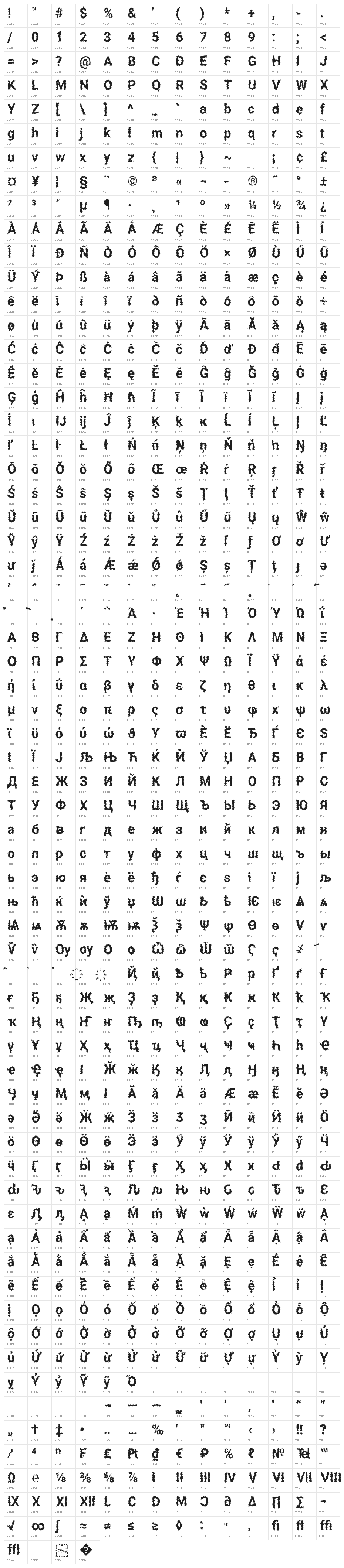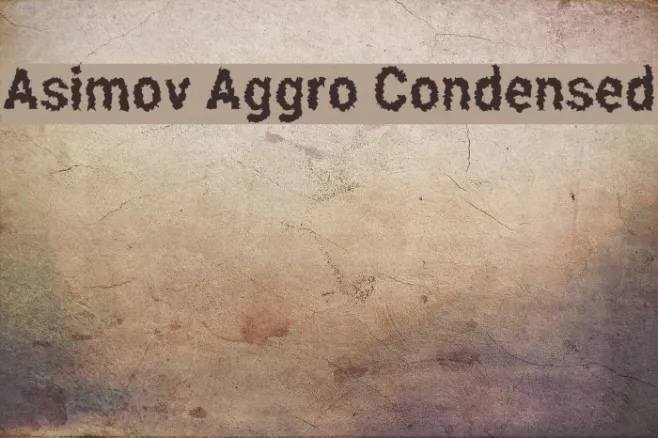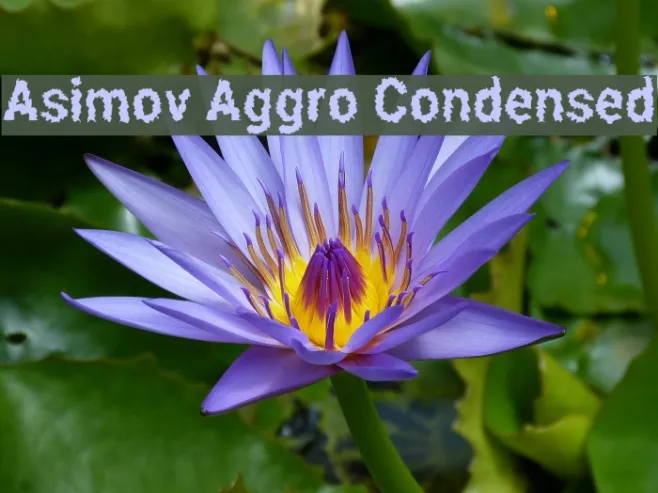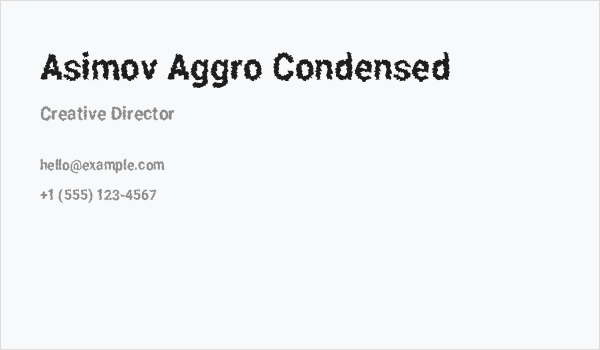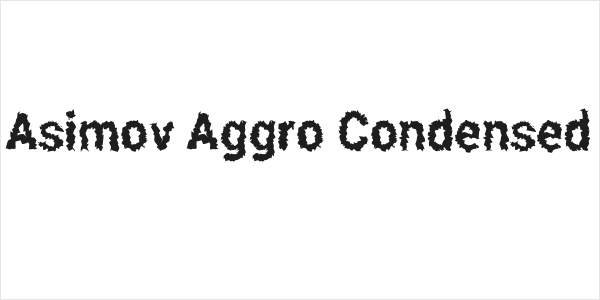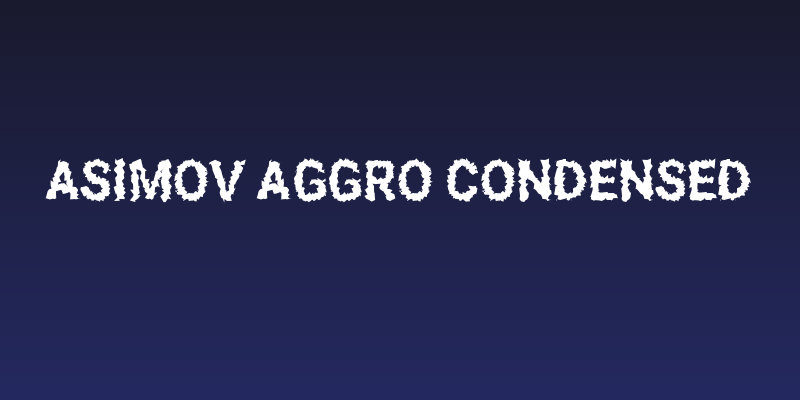
Asimov Aggro Condensed Font
Asimov Aggro Condensed Description
This font features a bold and aggressive design with jagged, thorn-like edges that give it a distinct, edgy appearance. The characters are condensed, enhancing the compactness and intensity of the style. Each letter and number is crafted with sharp, irregular outlines, creating a sense of movement and energy. The font's unique aesthetic makes it stand out, ideal for projects that require a strong visual impact. Its unconventional style is both eye-catching and memorable, making it suitable for creative and daring design projects.
Overall StyleModern, Edgy
Proposed ProjectsIdeal for album covers, posters, video game titles, and any project needing a bold, impactful design.